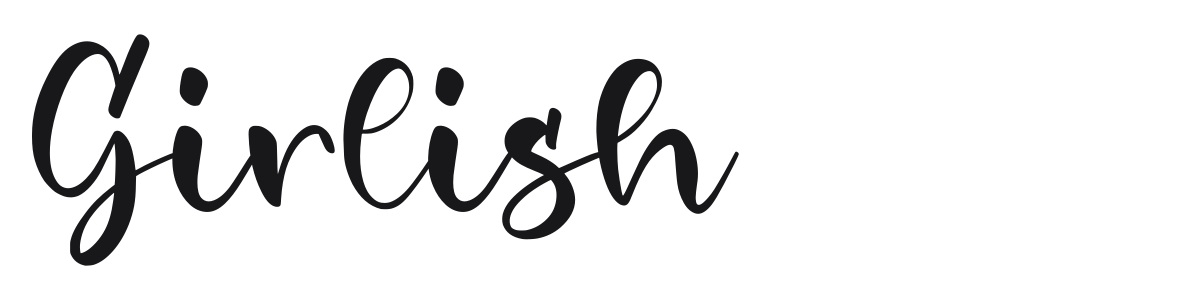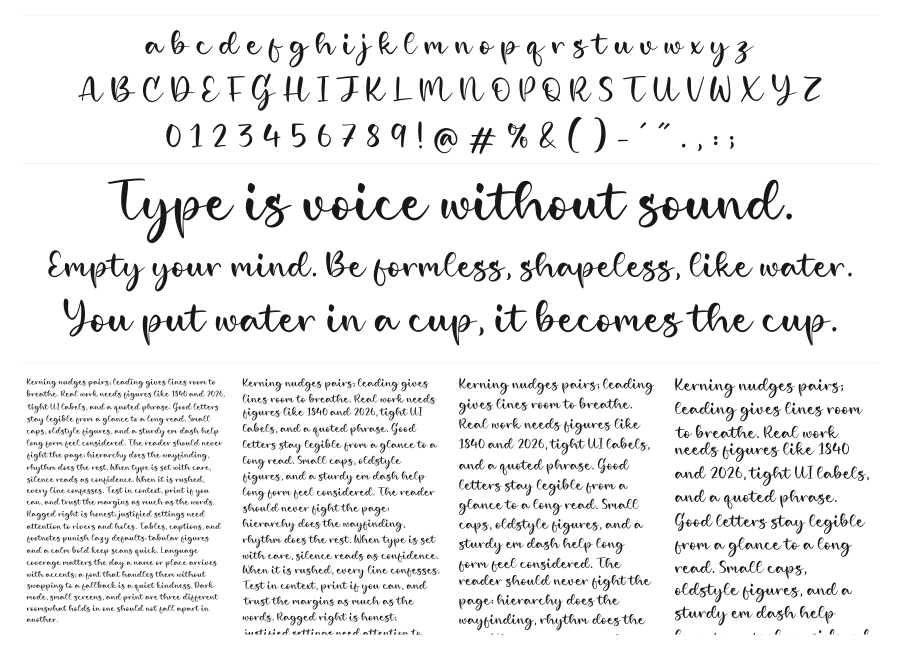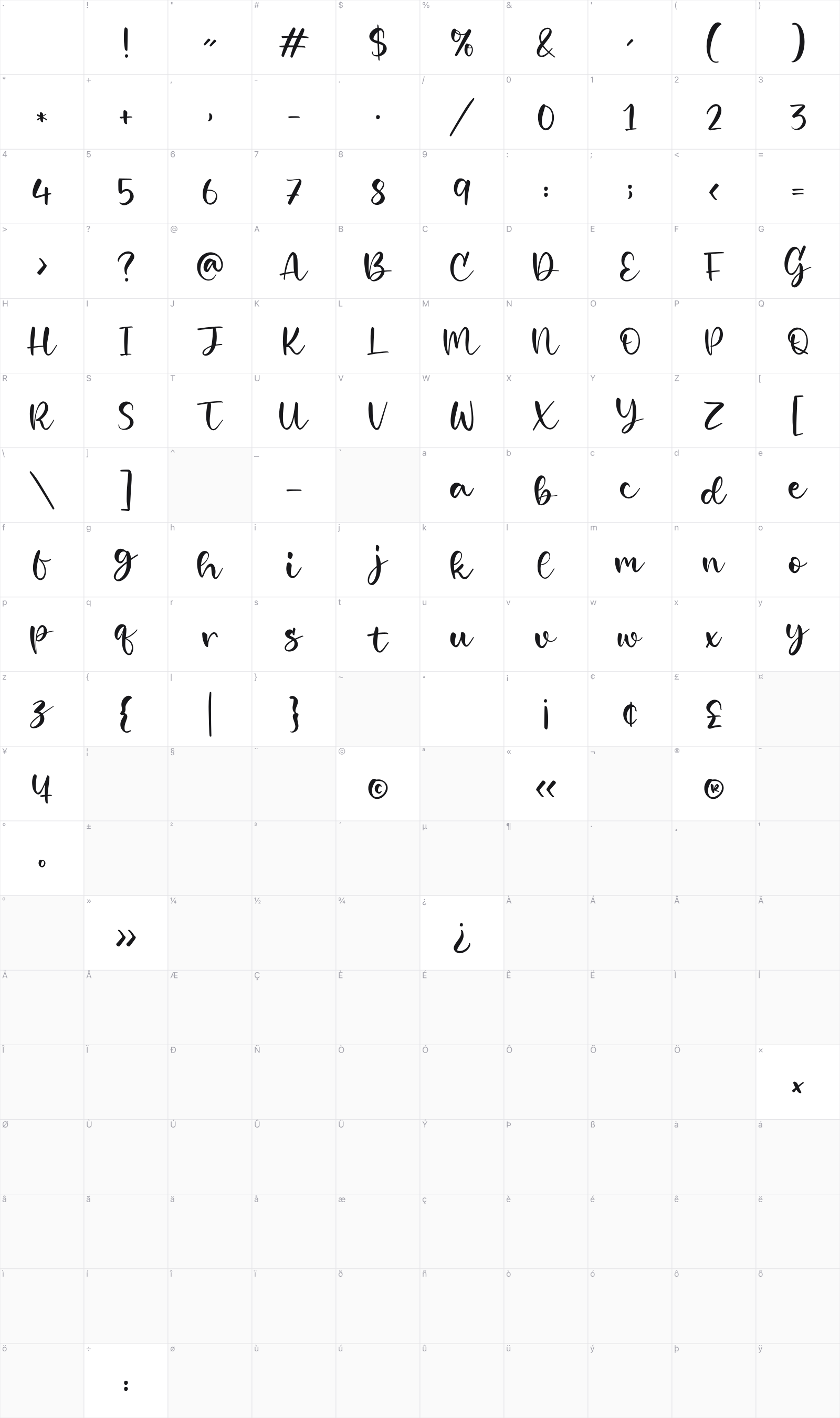
Girlish
Girlish is a flowing casual script with bouncy rhythm and generous looped ascenders that give it an effortlessly charming feel. The moderate brush-like stroke contrast keeps it legible at display sizes while retaining a handwritten warmth. A natural choice for branding, packaging, and event design that needs a light, feminine touch.